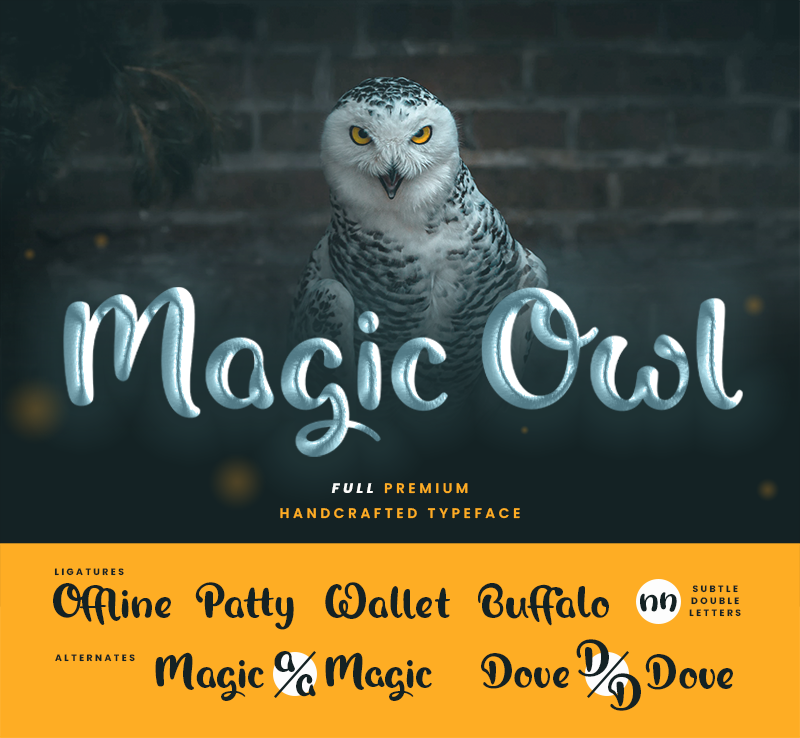
For everyone who needs a little bit of Magic in their life right now: Get enchanted by �Magic Owl�, a playful handcrafted premium font with a lot of unique twists and turns. This time we�re also sharing the font in Its FULL form. No demo, no missing glyphs - this freebie includes numbers, symbols, special characters and language support for most latin based languages. But that�s not all: ligatures and alternate Glyphs will magically appear while typing to give the font a realistic handwritten nature. PLEASE NOTE: This font is only free for personal use, so please buy a license if you want to use it for commercial purposes (anything you�re aiming profit with). A license can be bought on our website: www.shapedfonts.com/magic Please contact us at license@shapedfonts.com if your company has more than 10 employees or if you have any other requests/questions. ALSO NOTE: It is not allowed to modify this font in any way but we�re happy to help you with your custom �Magic Owl� - Solution! If your company wants this font for yourself, we�re also open to talk about selling all exclusive usage rights. Stay safe everyone! - Philip |